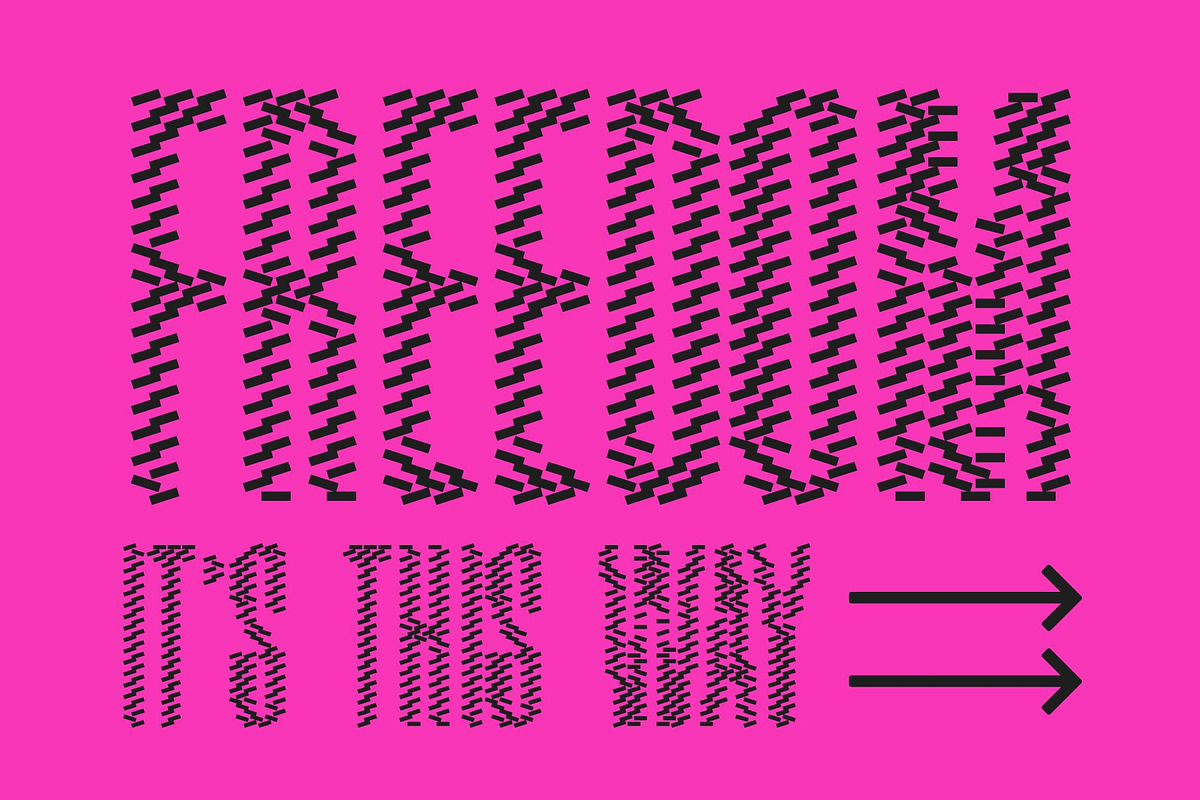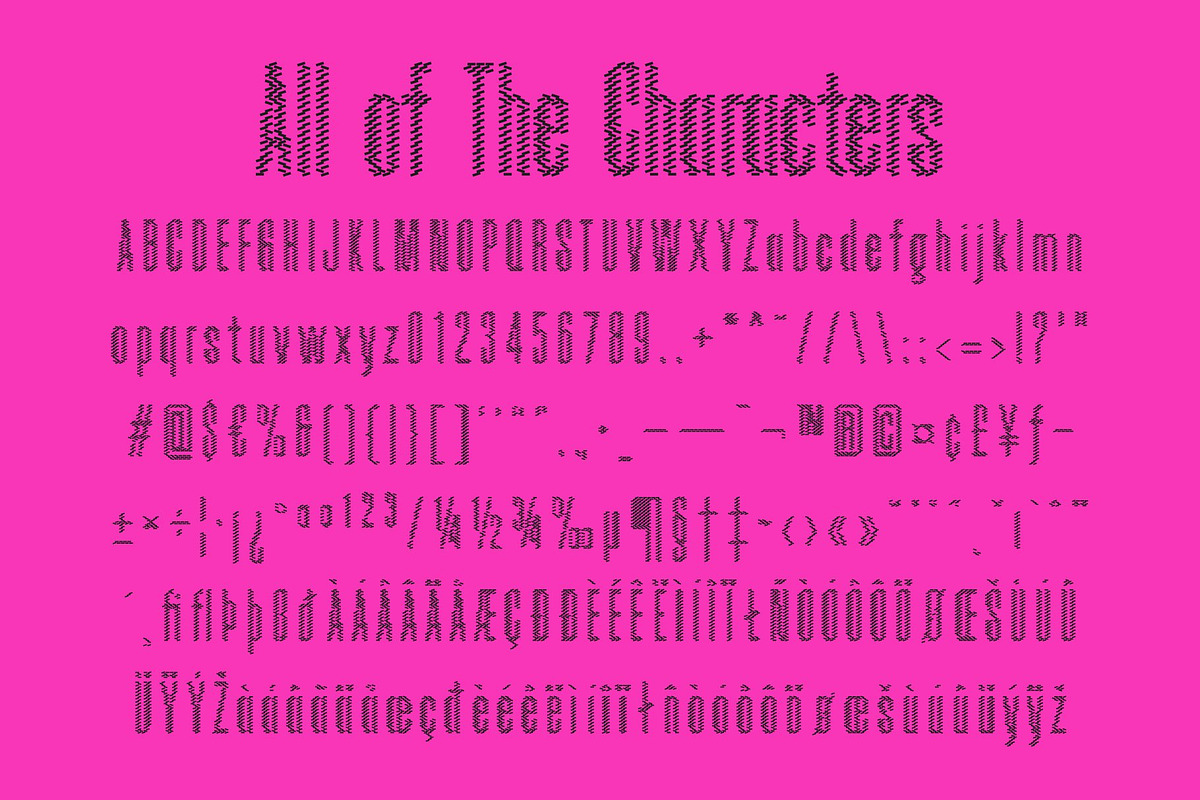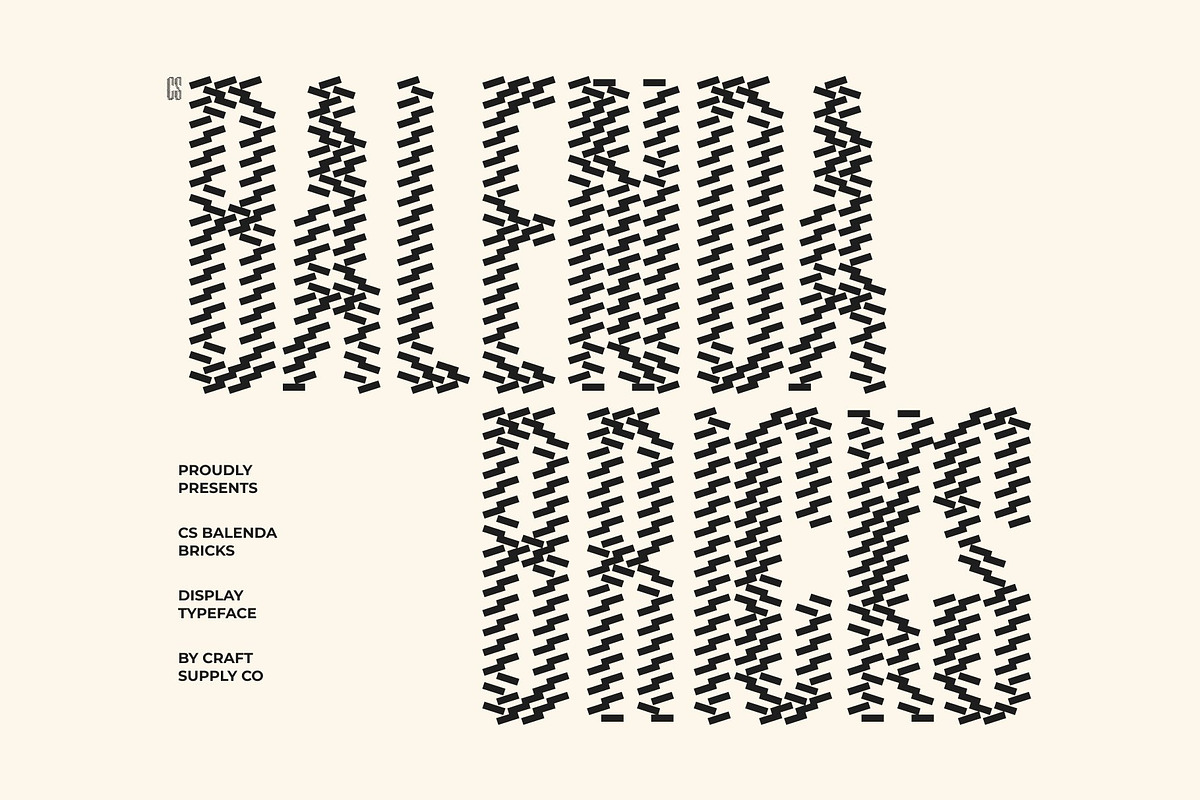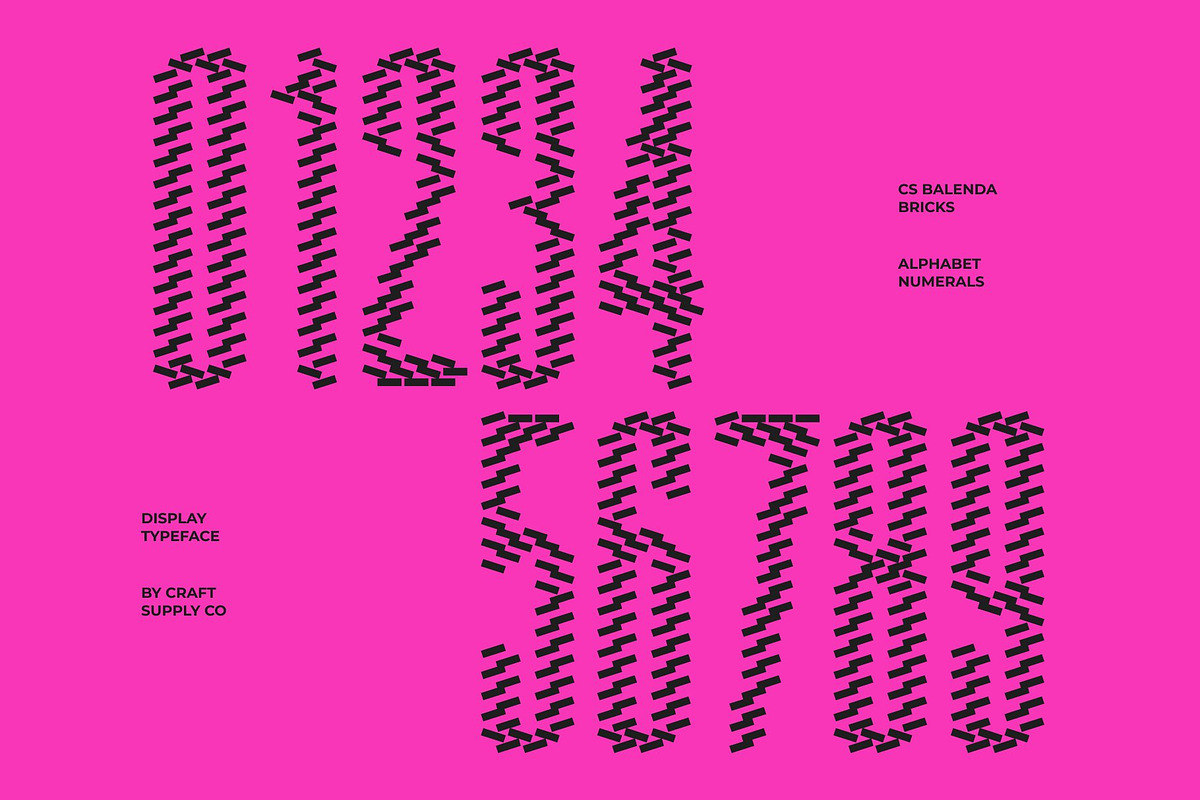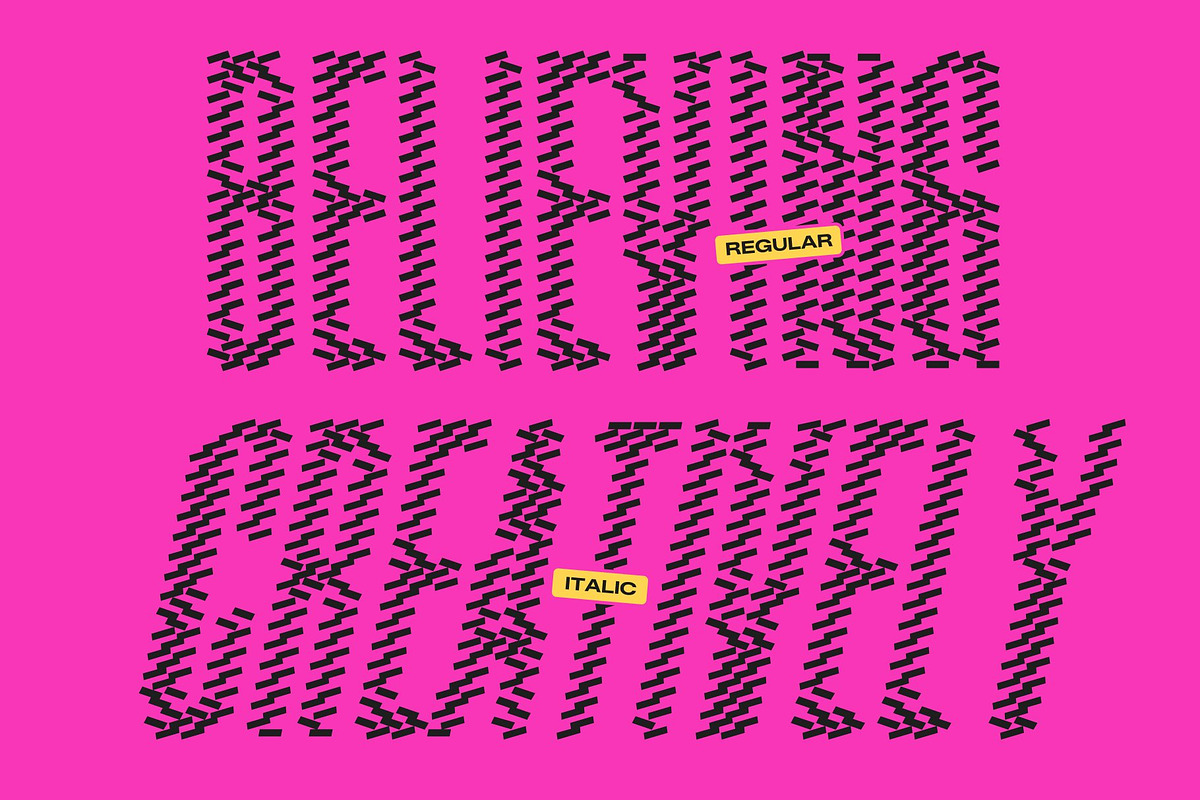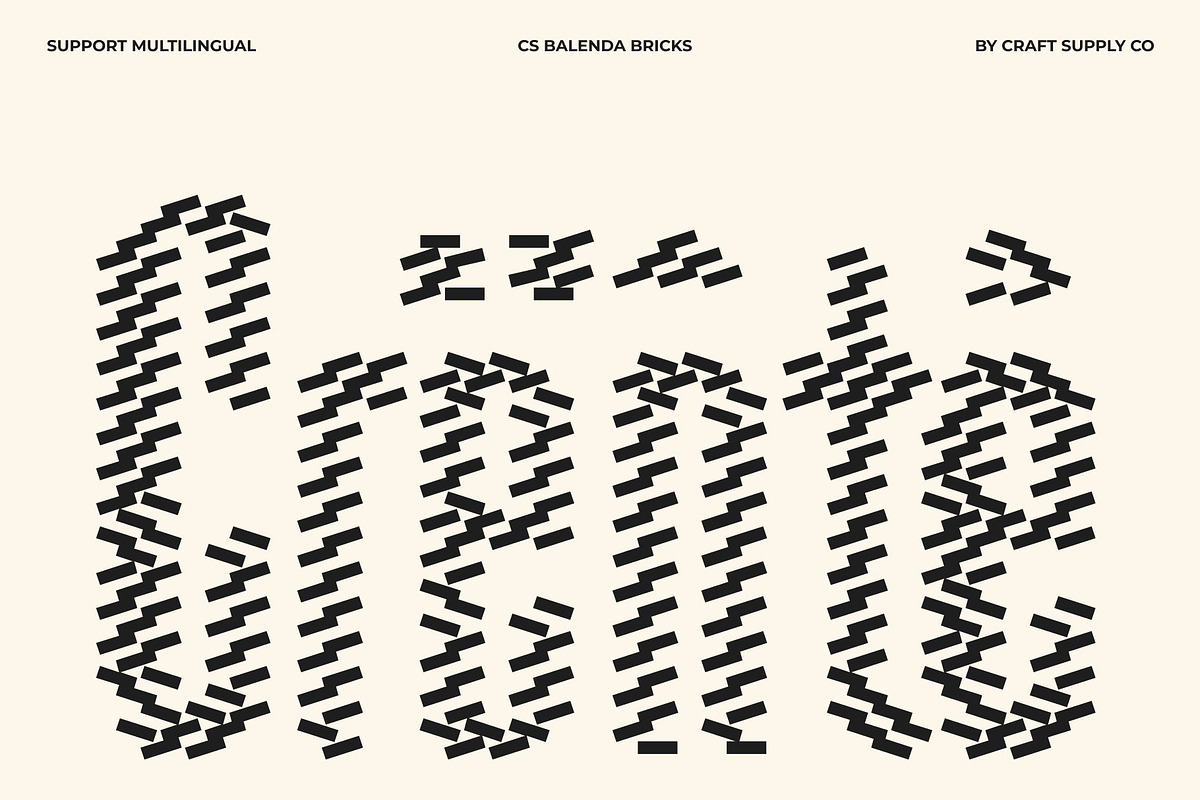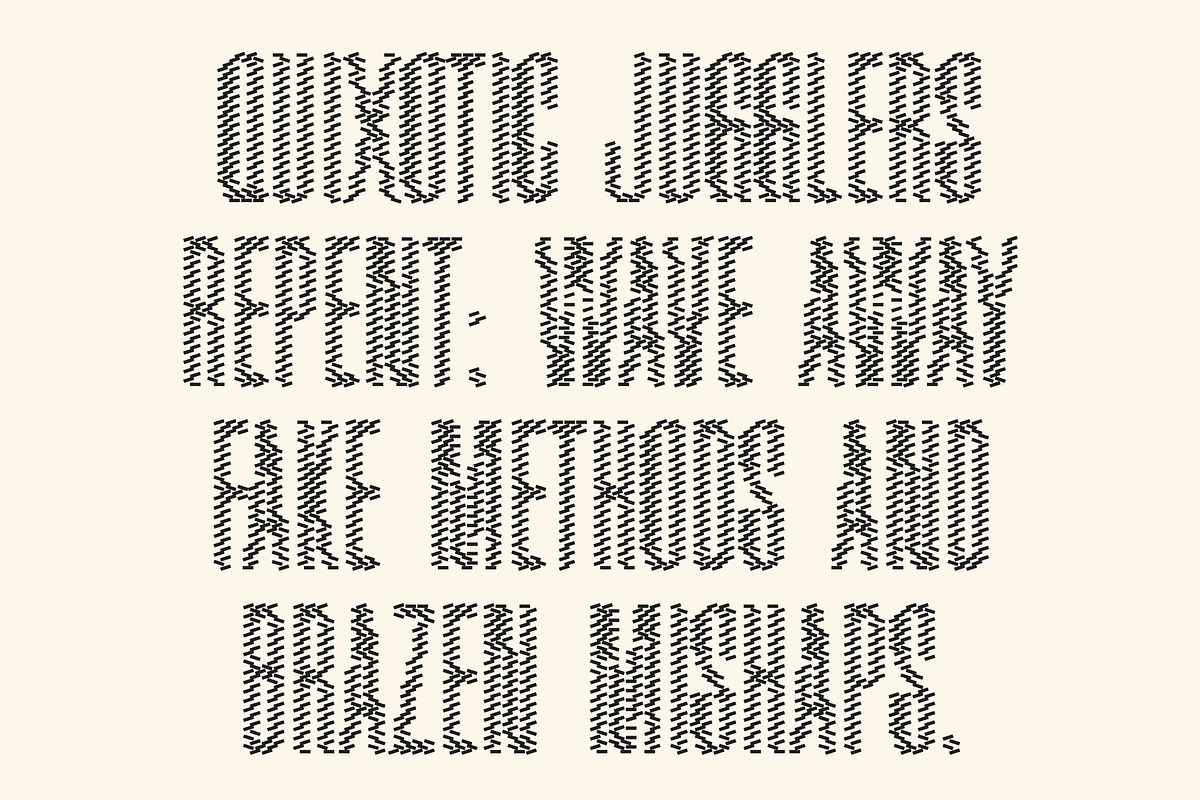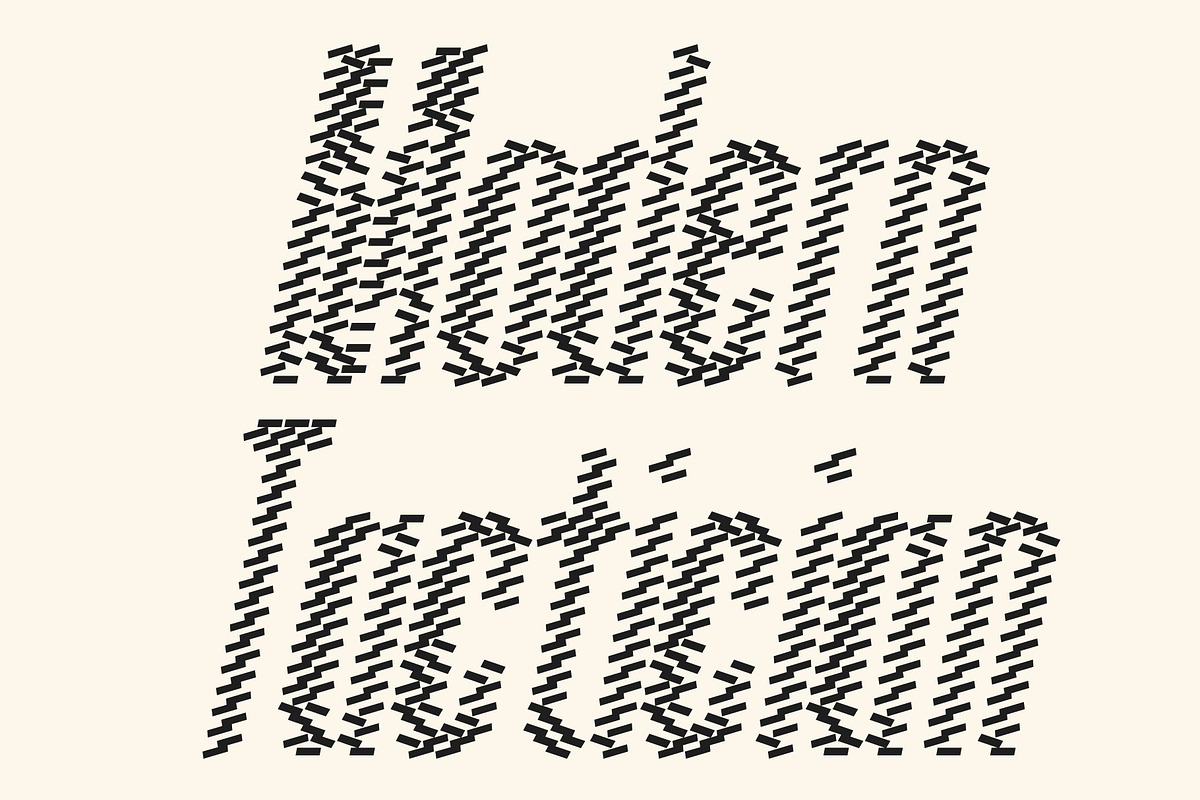
CS Balenda Bricks
CS Balenda Bricks – Condensed Sans Serif Font: Where Industrial Power Meets Architectural Texture
Bold Industrial Forms with Technical Precision This is a sans serif display font featuring a condensed bold structure and a strong industrial aesthetic. Its narrow proportions and heavy geometric forms create a masculine, technical, and highly commanding appearance that instantly captures attention. Designed for impactful display use, the font delivers a modern visual identity filled with strength and precision.
Brick-Inspired Texture with Structural Character This font creates the impression that each letter is constructed from decorative stacked bricks. This textured detailing introduces architectural depth and rugged urban character while maintaining the clean readability of the sans serif structure. The result is a powerful fusion of industrial functionality and creative texture.
Modern Industrial Style with Urban Energy Blending condensed contemporary typography with architectural brick detailing, it offers a typographic identity that feels technical, bold, and visually dynamic. Its strong vertical rhythm and textured forms create an energetic atmosphere ideal for modern industrial and technology-focused design projects.
Perfect for Tech Labels, Signage, and Industrial Branding This font perfect for industrial tech labels, logos, window decals, signage, packaging, posters, and sleek urban branding. Its bold condensed forms and decorative brick texture make it ideal for promotional graphics, merchandise, architectural visuals, and strong visual identities that demand authority and modern style.